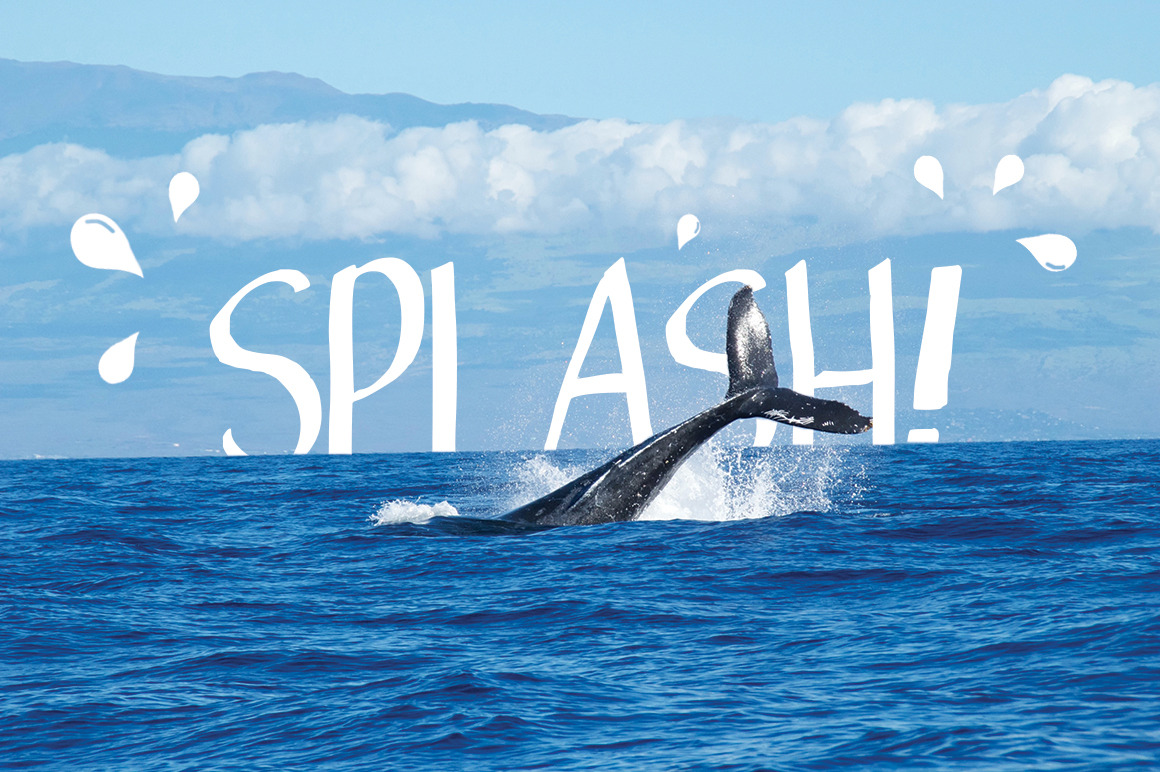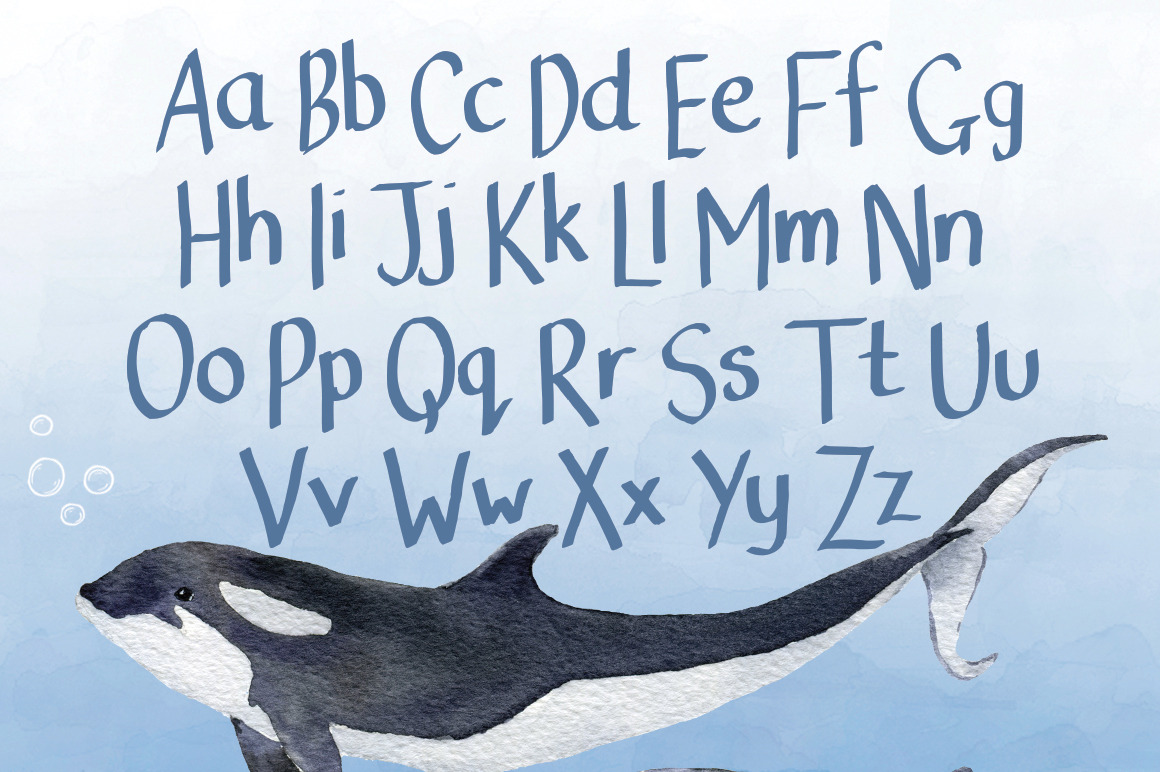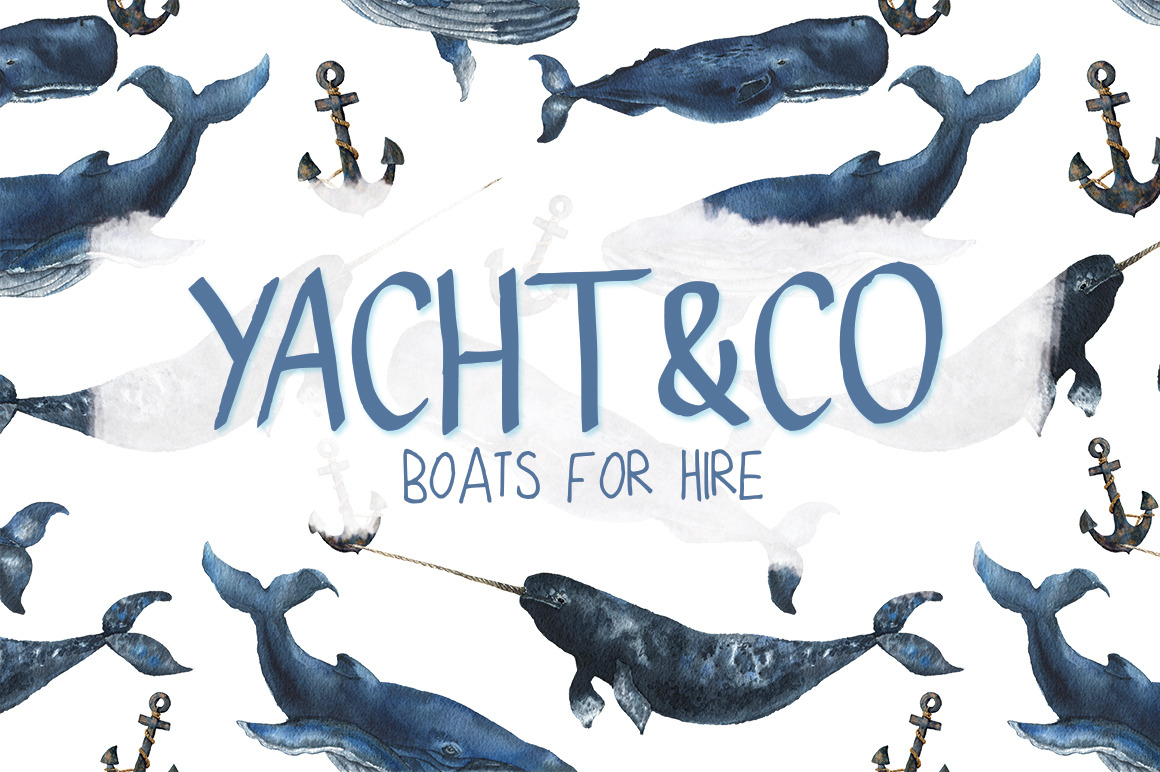
Oh Captain Font
This Oh Captain Font is perfect for nautical adventure branding, maritime shipping companies, sailing club materials, naval heritage museums, captain's quarters restaurants, yacht club signage, seafaring expedition promotions, marine equipment packaging, coastal leadership training, and commanding maritime applications.
What makes this Oh Captain Font exciting is its commanding presence that captures the authoritative leadership and maritime excellence of naval command and seafaring mastery. The font features bold letterforms with nautical characteristics that convey maritime authority, seafaring expertise, and captaincy leadership. Its commanding character and naval-inspired design make it ideal for brands seeking to communicate maritime excellence, nautical leadership, and seafaring authority in marine and adventure markets.
The Oh Captain Font family includes regular, medium, and bold weights with nautical alternates, maritime variants, and commanding flourishes. This comprehensive maritime font family provides designers with authoritative typographic tools to create commanding compositions while maintaining the nautical character essential for marine brands and seafaring communications.
Maritime companies and nautical organizations consistently choose Oh Captain Font Free Download for projects requiring authentic nautical appeal and maritime leadership credibility. This font's distinctive commanding character perfectly captures the seafaring excellence and naval authority that resonate with audiences who appreciate maritime heritage, nautical adventures, and brands that embody captaincy leadership and maritime expertise.
The authoritative construction of Oh Captain Font showcases powerfully designed letterforms with maritime proportions that ensure exceptional command presence across all nautical applications. Its seafaring appearance and commanding character create memorable impressions while maintaining the readability necessary for effective maritime communication and naval materials.
Professional designers appreciate how Oh Captain Font brings immediate nautical authenticity and maritime authority to brand communications. The font's commanding nature allows organizations to communicate seafaring excellence and nautical leadership while maintaining the professional quality necessary for effective positioning in maritime and nautical adventure markets.
The inspiring appeal of Oh Captain Font makes it particularly effective for brands emphasizing maritime leadership, nautical excellence, and seafaring authority. Its commanding character resonates strongly with audiences who appreciate naval heritage, maritime adventures, and brands that represent the authoritative leadership and seafaring mastery of maritime excellence.
Whether developing branding for maritime companies or creating materials for nautical adventure organizations, Oh Captain Font Free Download provides the commanding typographic foundation that maritime brands need to communicate their nautical excellence, seafaring authority, and the commanding leadership that defines maritime achievement and naval heritage excellence.